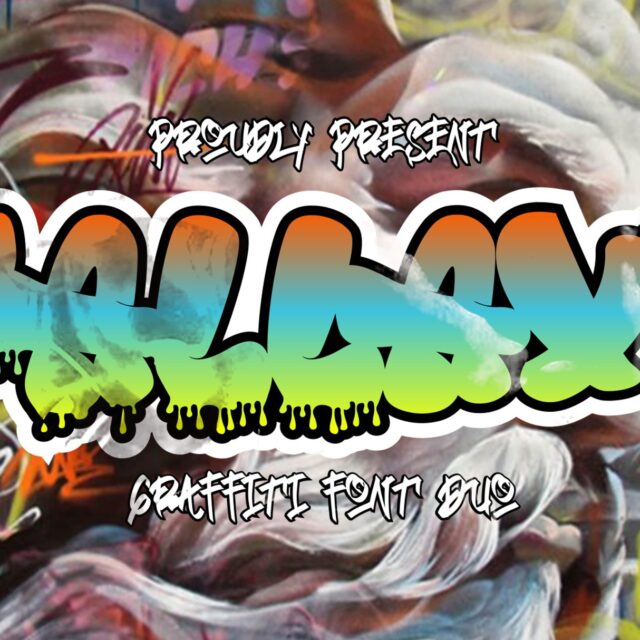
About Fallaxe
“Fallaxe” is a bubble font with two styles: basic and dripping. The basic style typically provides a clean and straightforward appearance to the letters, while the dripping style adds a more complex artistic element with effects resembling dripping liquid. This style choice allows you to customize the look of your text according to the aesthetics you desire for your design. “Fallaxe” can be used in various types of design projects that require a bubble font style with unique effects.